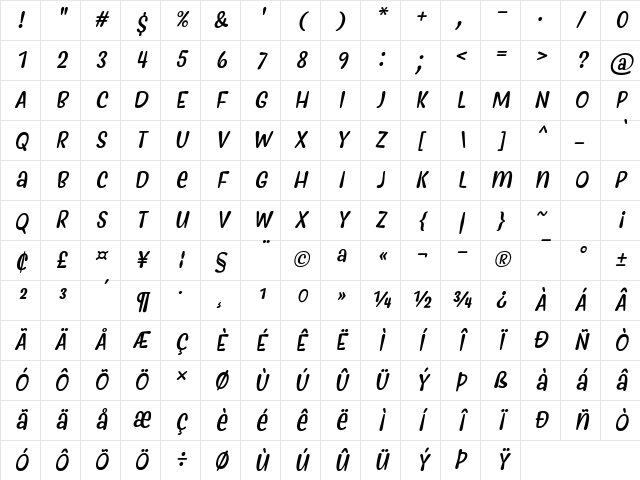
Complete Myfrida Italic glyph index. Displaying only characters natively supported by Myfrida Italic font.
Myfrida is a composed and adaptable typeface that performs quietly and consistently across a wide range of design contexts. The slanted form adds forward momentum and visual energy.
Pro Tip: Use Myfrida for emphasis, pull quotes, and subheadings where its slanted energy can add rhythm to the layout.